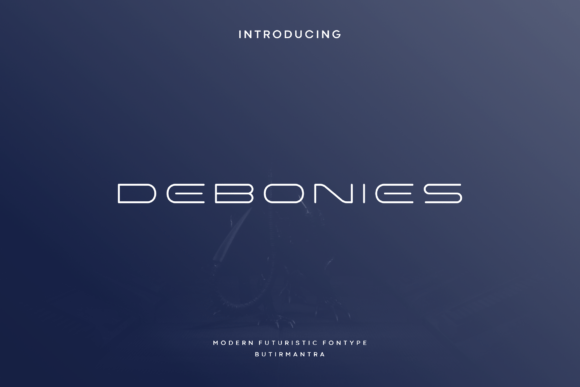
Introducing Debonies Font - the perfect choice for those seeking the best font for luxury. Created by garismantra, this sans serif font offers a fresh and contemporary look that will elevate your designs to new heights.
With its streamlined shape and futuristic vibe, Debonies Font exudes a sense of sophistication and elegance. Whether you're using it as a header or body text, this font will captivate your audience and leave a lasting impression.
Debonies Font is not just visually appealing, but also incredibly versatile. Its sleek design makes it ideal for a wide range of projects in various fields. Imagine using it in your futuristic robot and android designs, high-tech advertisements, virtual reality experiences, or even sports-related graphics. The possibilities are endless!
Experience the power of Debonies Font and let your creativity soar. Its unique style will add a touch of modernity and class to any project. From sleek logos and branding materials to eye-catching website headers, this font is sure to make a statement.
In summary, Debonies Font offers a fresh and futuristic look that is perfect for those seeking the best font for luxury. With its versatility and captivating appeal, this font is a valuable addition to any designer's toolkit. Don't miss out on the opportunity to elevate your designs and make a lasting impression. Download Debonies Font now and embark on a journey of creativity and sophistication. Cheers!